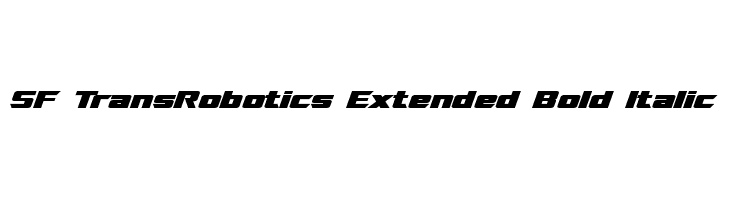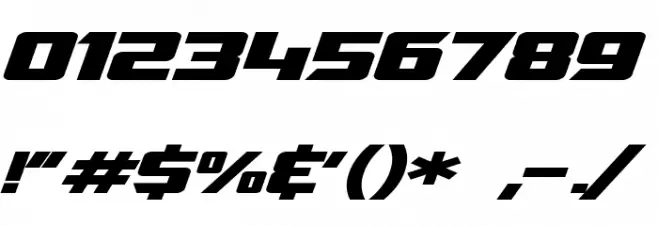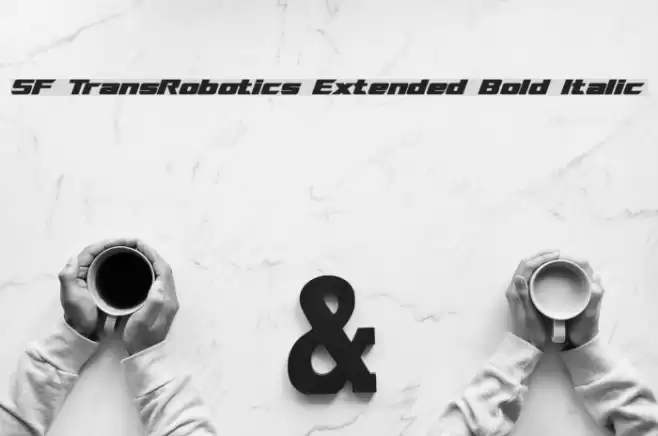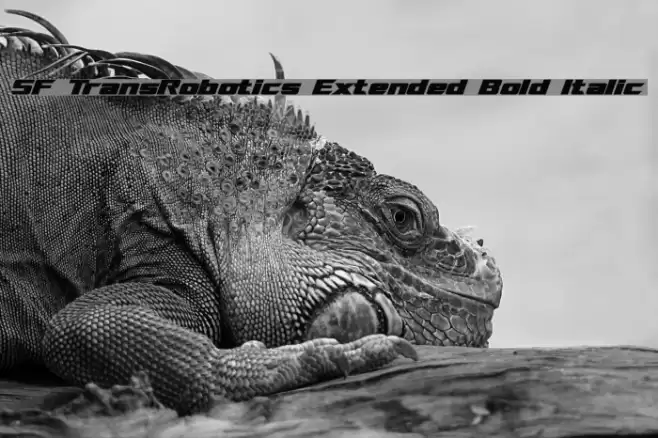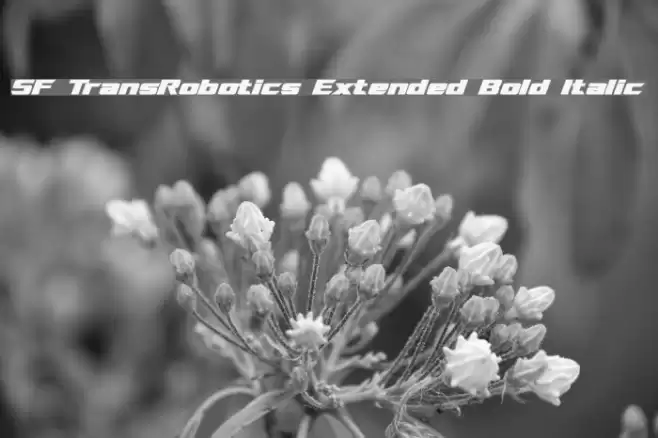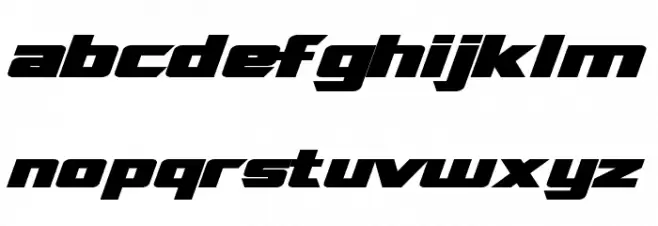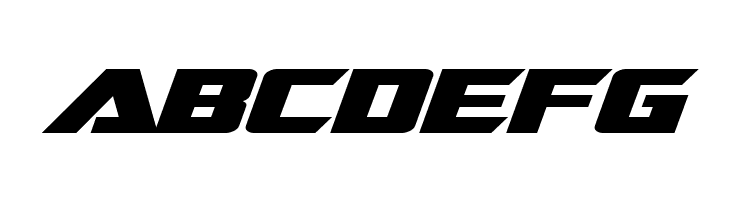
SF TransRobotics Extended Bold Italic Font
SF TransRobotics Extended Bold Italic Description
This font features a bold and dynamic design with an italic slant, giving it a futuristic and energetic appearance. The characters are extended, providing a sense of movement and speed. The strokes are thick and consistent, contributing to a strong visual impact. The angular and geometric shapes of the letters enhance its modern and technological feel. The font maintains uniformity across uppercase, lowercase, numerals, and special characters, ensuring readability and versatility.
| Proposed Projects | Ideal for technology branding, sports team logos, video game titles, and sci-fi movie posters. |